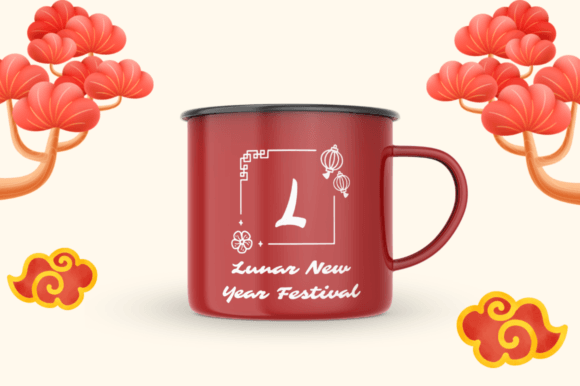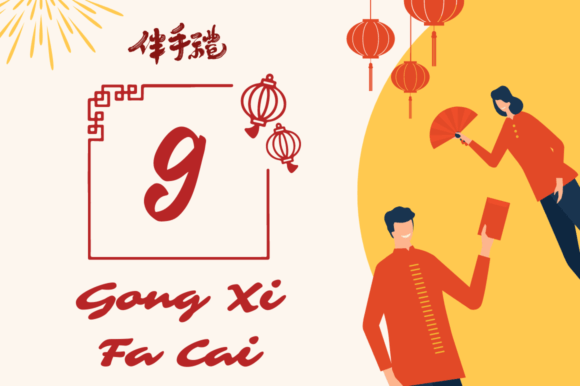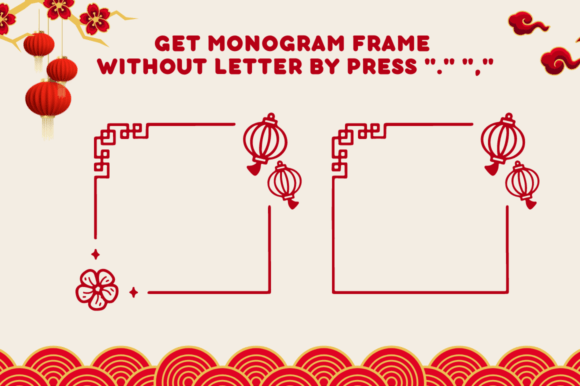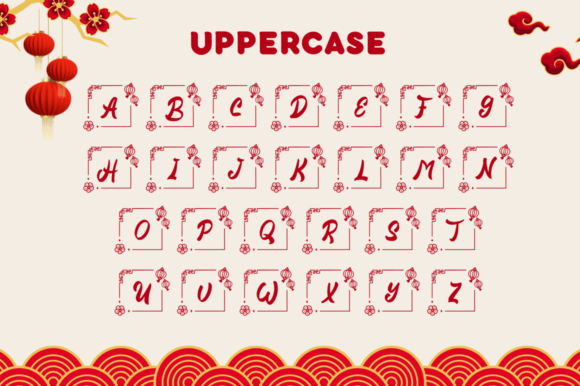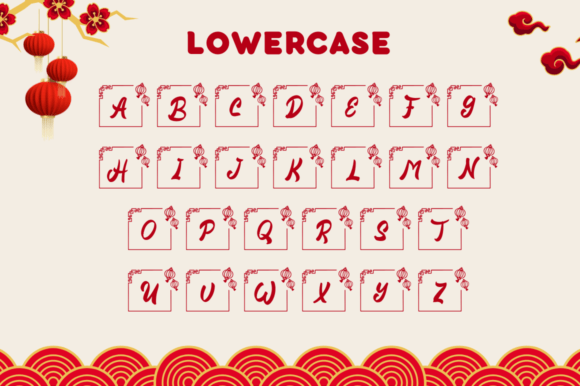
Introduction to Nian Chinese Monogram Font
Nian Chinese Monogram is a Square Lantern wreath decorative font.
This font can be used to make Chinese new year themed gifts, including textiles, and gifts for kids and it is a perfect gift for a new homeowner, a Chinese family, or anyone with a love of monograms .
Key Features of Nian Chinese Monogram Font